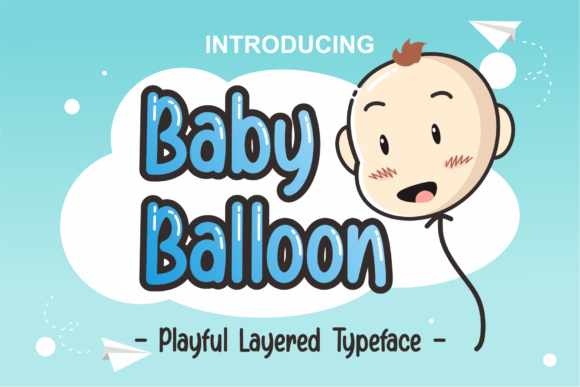
Meet Your New Best Friend: Baby Balloon Font
Remember that moment when a spark of creativity hits you, and you just can’t wait to bring your idea to life? You’re scribbling down notes, browsing through color palettes, and envisioning the perfect font to match your vision. That’s where the magic happens, and that’s where the Baby Balloon Font comes in.
This enchanting display font is all about embracing fun, quirkiness, and authenticity. With its childlike playfulness, it’s the perfect companion to turn any creative idea into a true standout. Whether you’re designing a children’s book, a party invitation, or a social media campaign, the Baby Balloon Font is sure to add a touch of whimsy and personality to your project.
Baby Balloon Font Key Features
- Unique Characteristics: Hand-drawn, playful design with a whimsical feel; ideal for children’s products, party invitations, and nursery decor
Baby Balloon Font Review
Overall, I found the Baby Balloon Font to be a playful and whimsical choice for any design project. ✨ Its childlike charm and rounded edges evoke a sense of innocence and wonder.
- Works well for:
- Baby-related designs (e.g., nursery decor, baby announcements)
- Whimsical illustrations and graphics
- Children’s book covers and interior design
- Limitations:
- May not be suitable for formal or professional designs
- Lack of versatility for non-baby-related projects
- Some characters may be too simplistic or hard to read at small font sizes
While the Baby Balloon Font excels at capturing a playful atmosphere, its limitations make it less versatile than other font options. ✨ It’s a great choice when you want to convey a sense of fun and innocence, but may not be the best fit for more serious or complex designs.
Overall, I’d give the Baby Balloon Font 4 out of 5 stars. It’s a delightful addition to any design project, but its limitations should be considered before making a final decision.
Tips for Getting the Most Out of Baby Balloon Font
Use the Baby Balloon Font to create playful and whimsical designs. Pair it with bright colors and fun illustrations to create a unique look. Experiment with different font sizes and styles to add emphasis and create visual interest.
The Baby Balloon Font is perfect for:
- Birthday invitations and party decorations
- Children’s book covers and illustrations
- Playful social media graphics and ads
- Whimsical wedding invitations and decorations
Alternatives to Baby Balloon Font
Great Vibes is a modern, cursive script font perfect for creating a playful and friendly atmosphere. It features flowing connections between letters and is ideal for titles, headings, and short text passages. Great Vibes is more elegant and sophisticated compared to Baby Balloon Font, which has a more childish and whimsical feel.
Pacifico is a beautiful, elegant script font inspired by the beauty of the Pacific coast. It features a flowing and organic design, making it perfect for creating a relaxed and calming atmosphere. Pacifico is more refined and polished compared to Baby Balloon Font, which has a more casual and informal feel.
Playfair Display is a luxurious, high-end script font perfect for creating a sense of sophistication and elegance. It features intricate details and ornate flourishes, making it ideal for titles, headings, and short text passages. Playfair Display is more formal and refined compared to Baby Balloon Font, which has a more casual and playful feel.
Lobster is a fun, casual script font perfect for creating a playful and energetic atmosphere. It features a bold and expressive design, making it ideal for titles, headings, and short text passages. Lobster is more edgy and bold compared to Baby Balloon Font, which has a more delicate and whimsical feel.